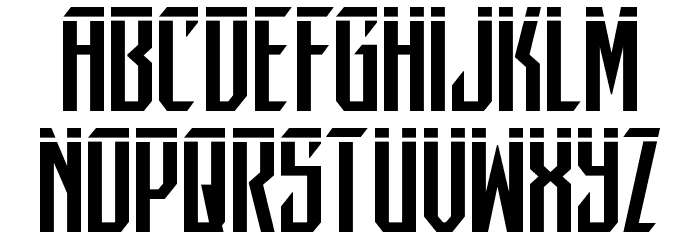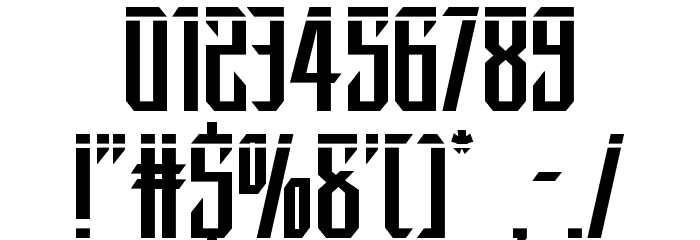
Dark Dominion Laser Font
This font features a bold and futuristic design with sharp, angular edges and a geometric structure. The uppercase letters are tall and narrow, giving a sense of height and modernity. The lowercase letters maintain the same angular style, ensuring consistency throughout the typeface. Numbers and special characters are designed with the same attention to detail, making them stand out with a unique, edgy appearance. The overall look is dynamic and impactful, suitable for projects that require a strong visual presence.
A bold, angular, and futuristic font with a geometric design.
- Proposed Projects: Ideal for sci-fi themed projects, video game titles, posters, and branding that requires a modern and edgy look.